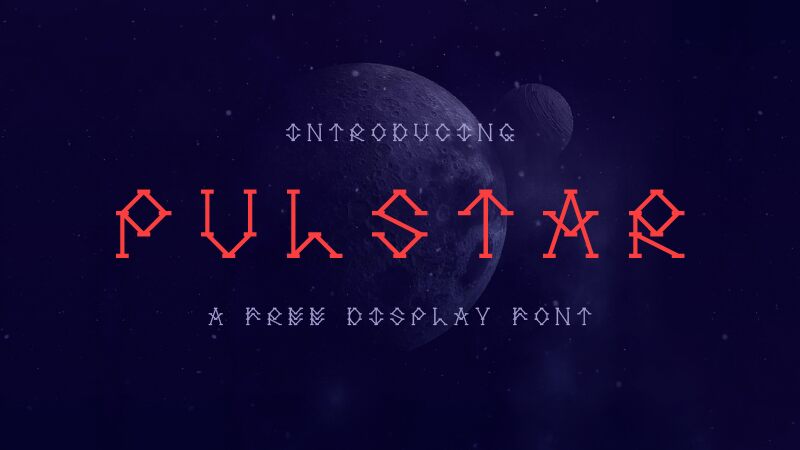
Pulstar Italic, a creation by GGBotNet, stands out with its futuristic and dynamic design. This display font captivates with its light weight and unique angular strokes, reminiscent of cosmic constellations. Perfect for projects that aim to capture attention and inspire curiosity,
Pulstar Italic exudes a sense of movement and modernity that makes it ideal for innovative branding, tech-oriented publications, or eye-catching advertisements. Its distinctive character shapes are sure to leave a lasting impression wherever they're applied. Embrace the celestial charm of Pulstar Italic to give your designs an avant-garde edge.